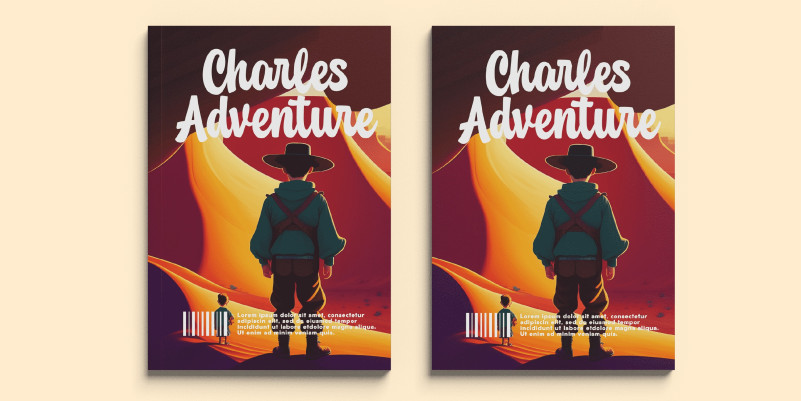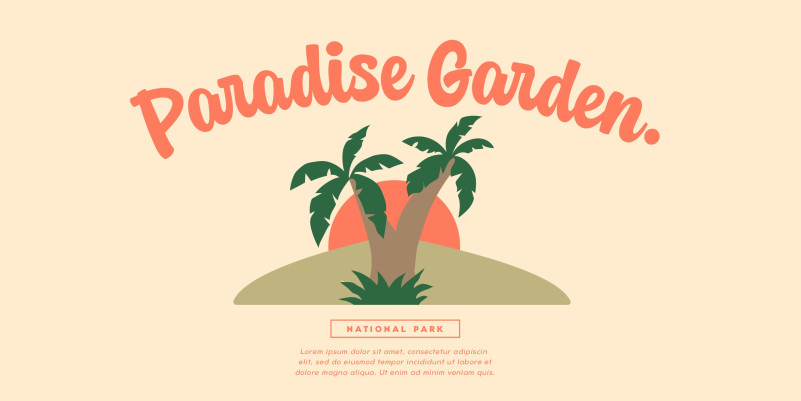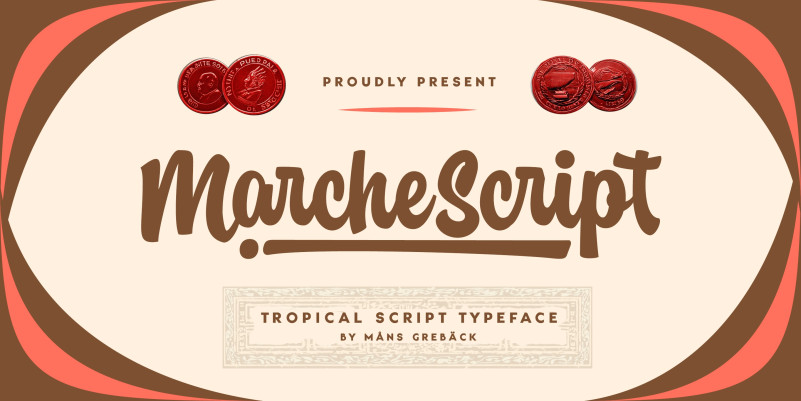
Marche Script Font
Marche Script Font, This font is perfect for stickers, retro projects, craft projects, shirts, svg designs, procreate designs, branding, blogs, logos, invitations and more!
Use underscore _ anywhere in a word to make a swash.
Example: World_score
Use multiple underscores to make swashes of different lengths.
Example: Brand_____Genie